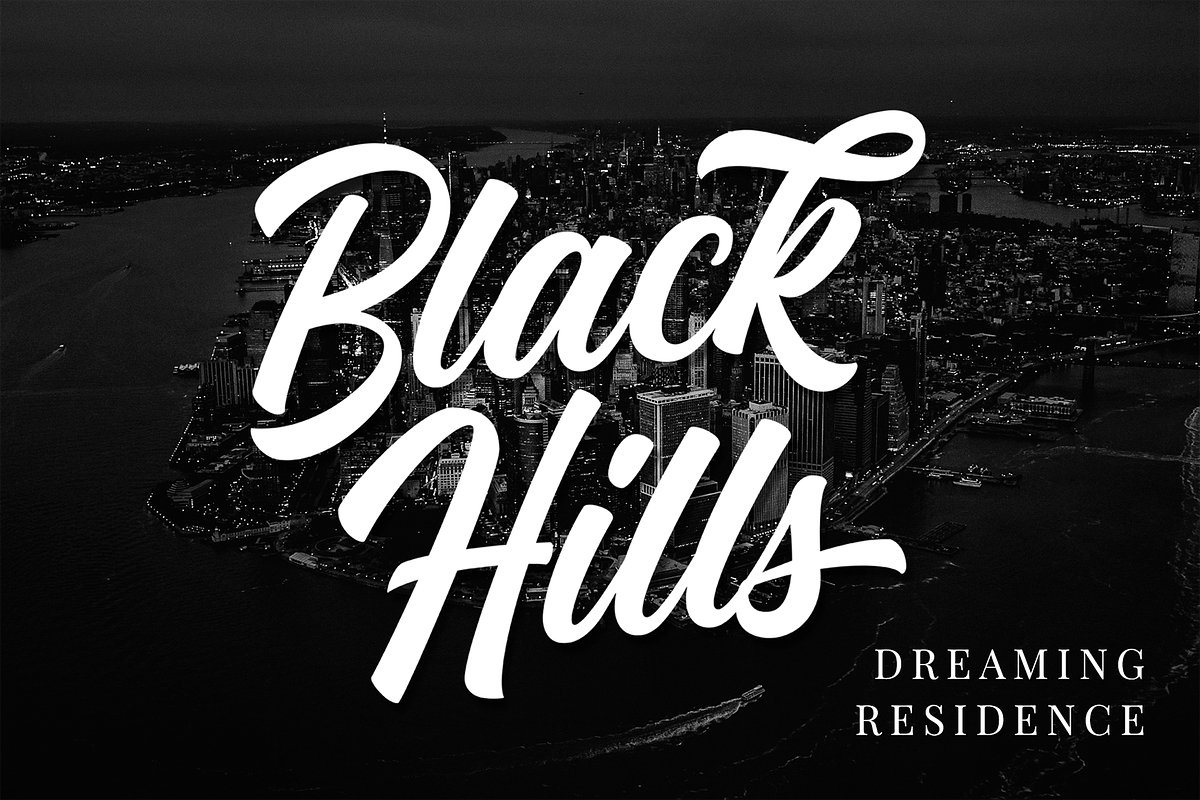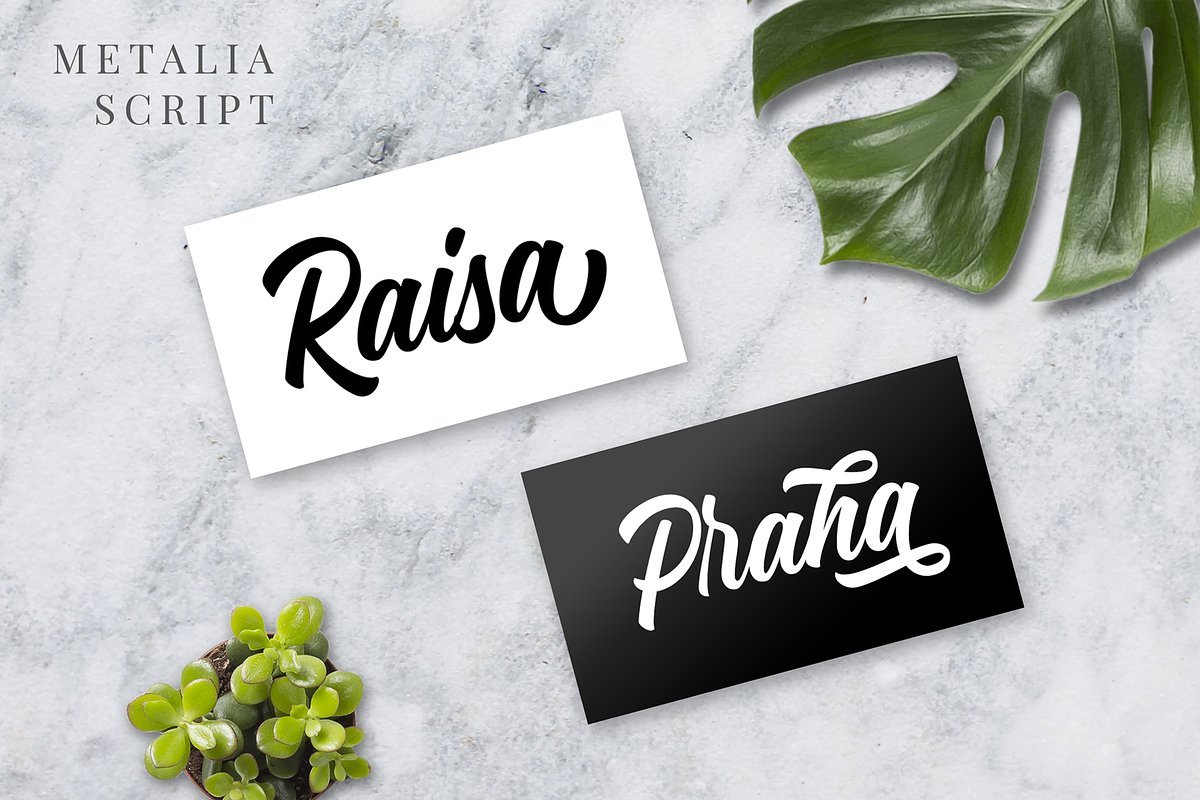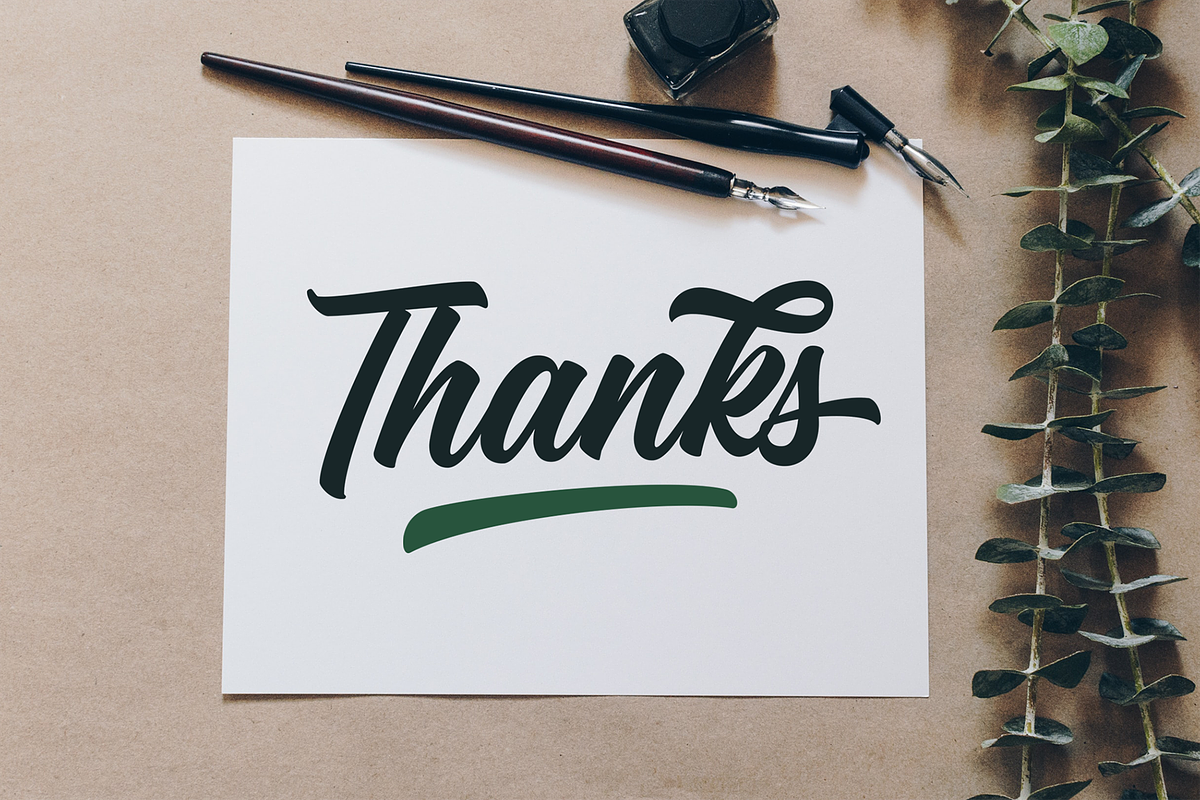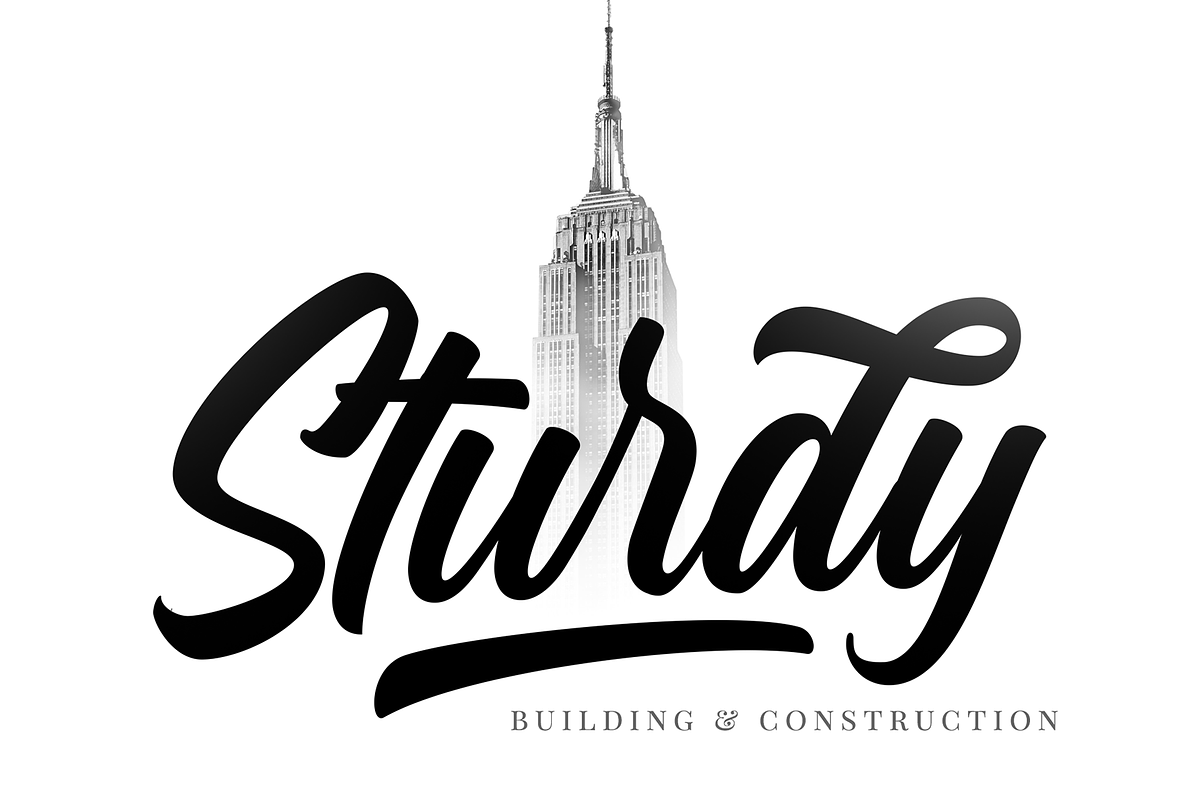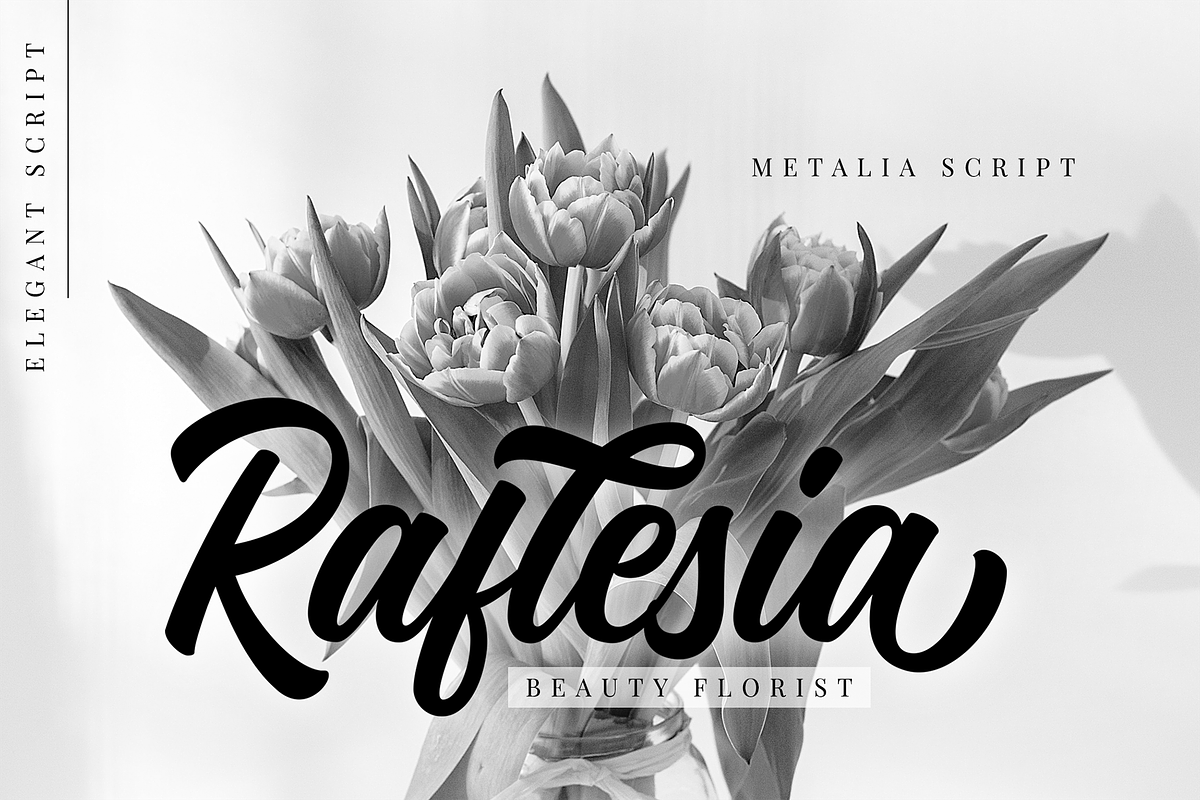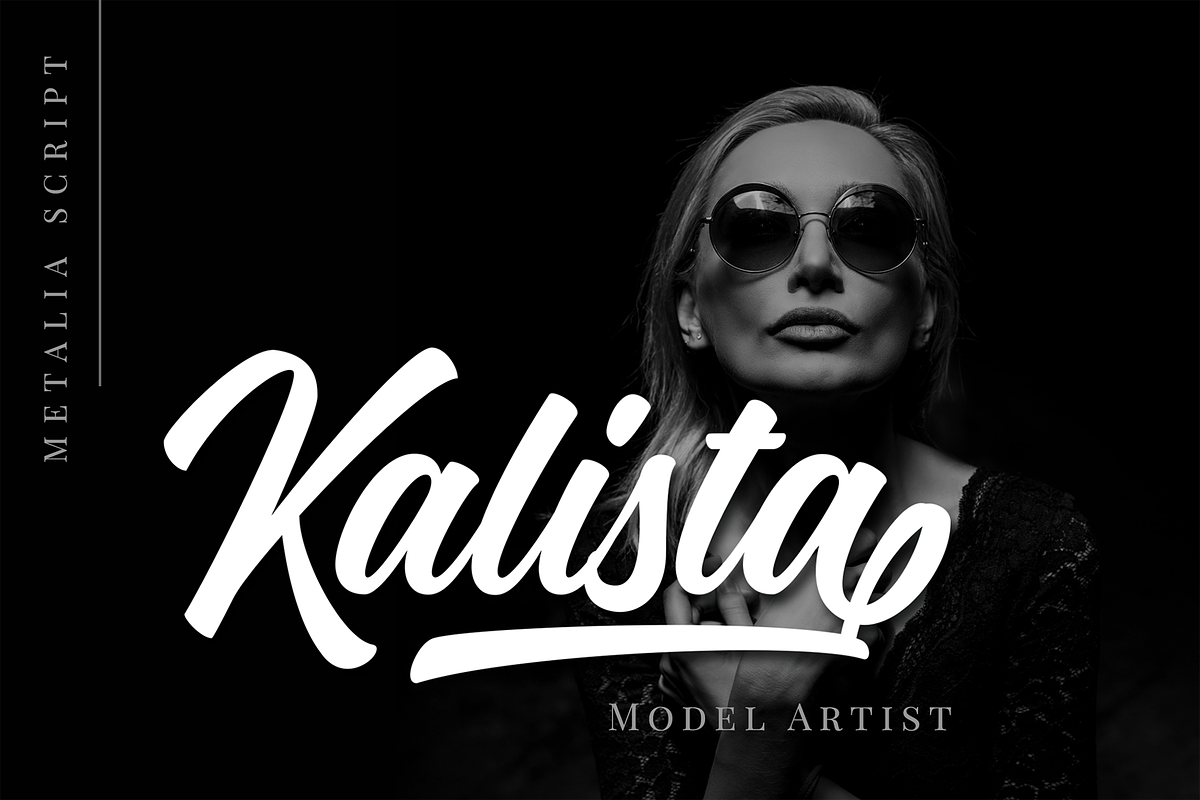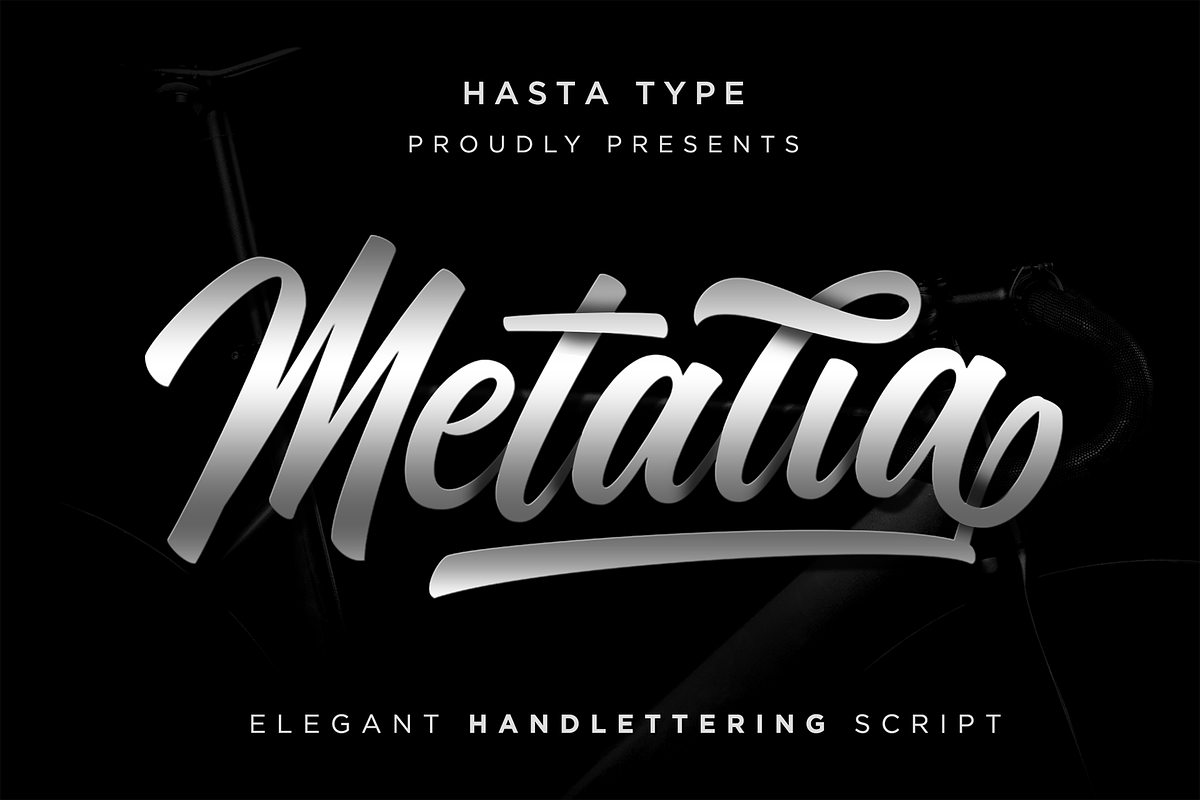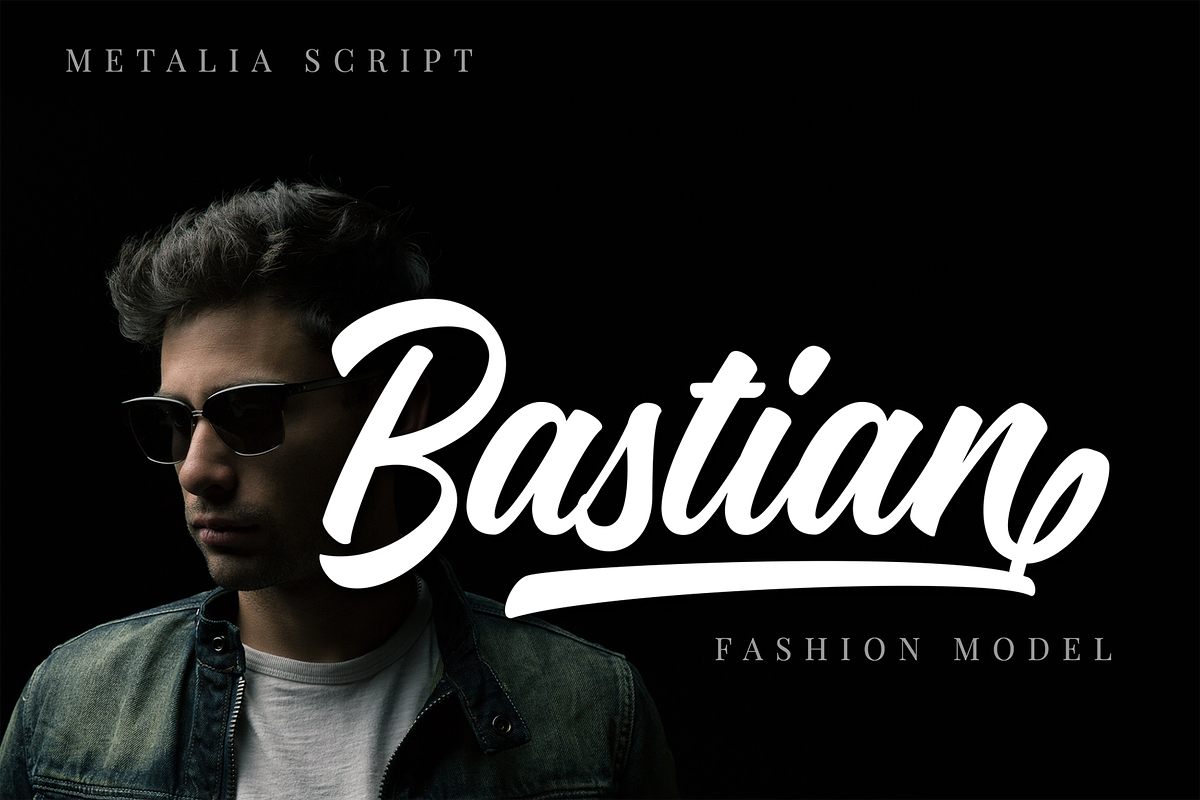
Metalia Script
Metalia Script is Elegant and Classy Typeface. It has so many alternates with handlettering style. We make this font looks elegant, classy, readable, stylish, catchy and easy to use.
Metalia Script is a great choice for Logotype, quotes, album cover, business card, t-shirt design and much more. Stay Classy and Elegant with this awesome typeface.